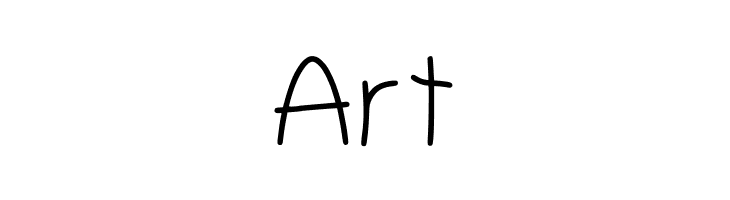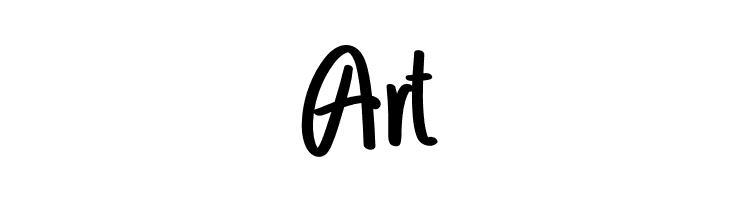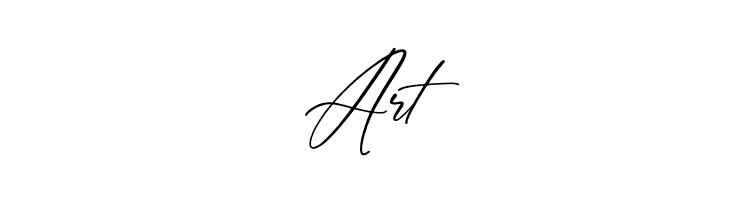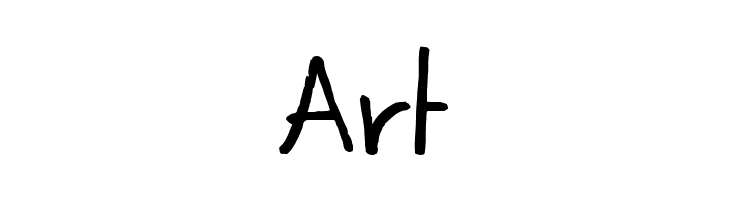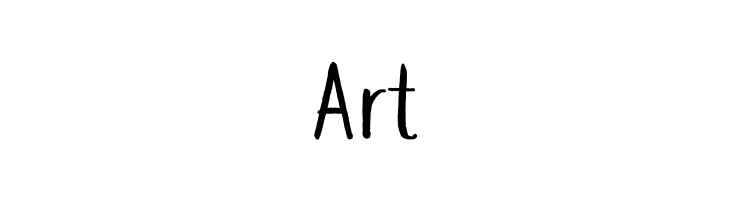
Casual handwritten script with smooth, flowing strokes.
Elegant cursive script with a handwritten style.
Bold, playful handwritten font with rounded shapes.
Elegant cursive script with a handwritten style.
Tall, handwritten sans-serif with a playful, casual style.
A playful, artistic handwritten font with fluid strokes and whimsical flair.
Elegant script font with a handwritten style.
A graceful script font with flowing, interconnected letters and elegant curves.
A playful, cursive font with a handwritten feel and smooth, rounded curves.
A dynamic handwritten font with fluid strokes and a playful yet sophisticated style.
A fluid and elegant handwritten style with smooth, flowing curves.
A playful, casual handwritten font with bold, rounded characters.
A bold, textured, hand-drawn font with a distressed appearance.
A bold, textured all-caps font with an urban, distressed style.
A bold, hand-drawn italic font with a textured, artistic style.
A bold, textured, hand-drawn font with a playful, artistic style.
A casual, handwritten font with a playful and informal style.
A sleek, handwritten italic font with a light and elegant style.
A hand-drawn, casual font with a playful and approachable style.
A dynamic, handwritten-style font with an italic slant and consistent stroke width.
A bold, textured, and italic font with a hand-drawn style.
A sophisticated, cursive script with graceful, elongated letterforms.
A dynamic and flowing script font with elegant, cursive letterforms.
Elegant cursive script font.
A fluid, elegant handwritten font with a natural cursive flow.
A casual, handwritten-style font with irregular strokes and a personal touch.
A playful, casual handwritten font with smooth curves and rounded edges.
Handwritten calligraphic script with elegant, flowing strokes.
A playful, handwritten-style font with a modern and elegant touch.
A casual handwritten font with a lively and organic appearance.